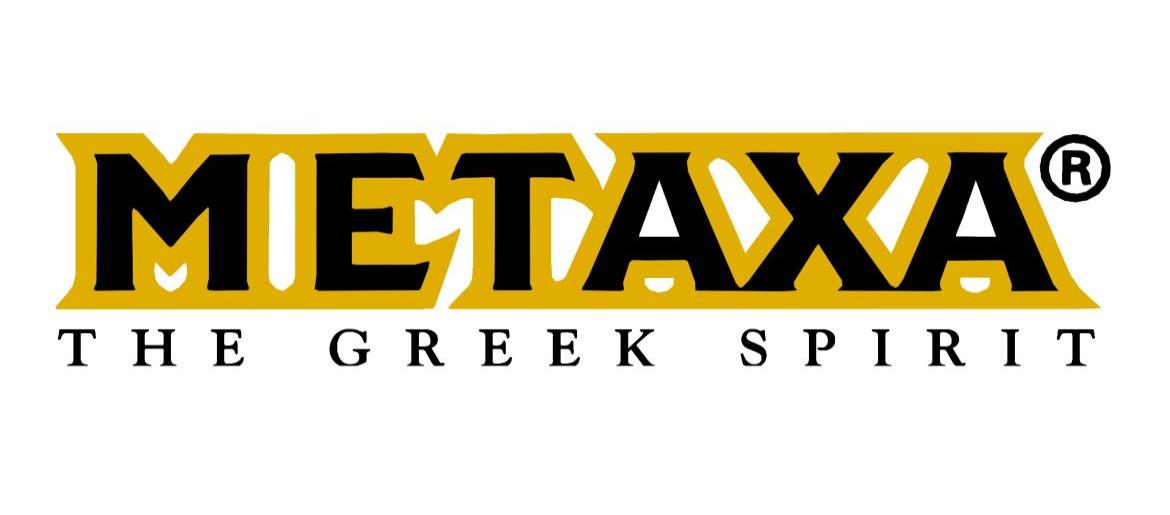
Metaxa Font
What Font is Metaxa?
The Metaxa Font used for the branding of the spirit is likely a custom-designed typeface created specifically for the label. For design purposes, a premium font (Cenzo Flare Condensed Medium) that closely approximates the style is available. Additionally, we’ve identified a free alternative font that captures the same elegant, heritage-inflected serif aesthetic—ideal for recreating the brand’s refined look while keeping costs down.
About Metaxa
Metaxa is a Greek amber spirit created in 1888, blending aged wine distillates, Aegean muscat wines and Mediterranean botanicals. Its branding reflects a legacy of craftsmanship, tradition and timeless elegance — and the font choice reinforces those themes with bold yet refined letterforms that convey heritage, authenticity and premium quality.